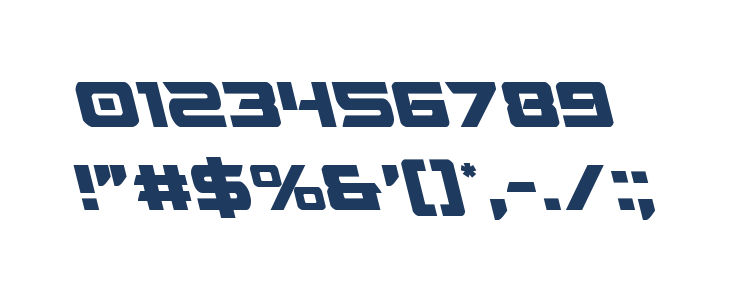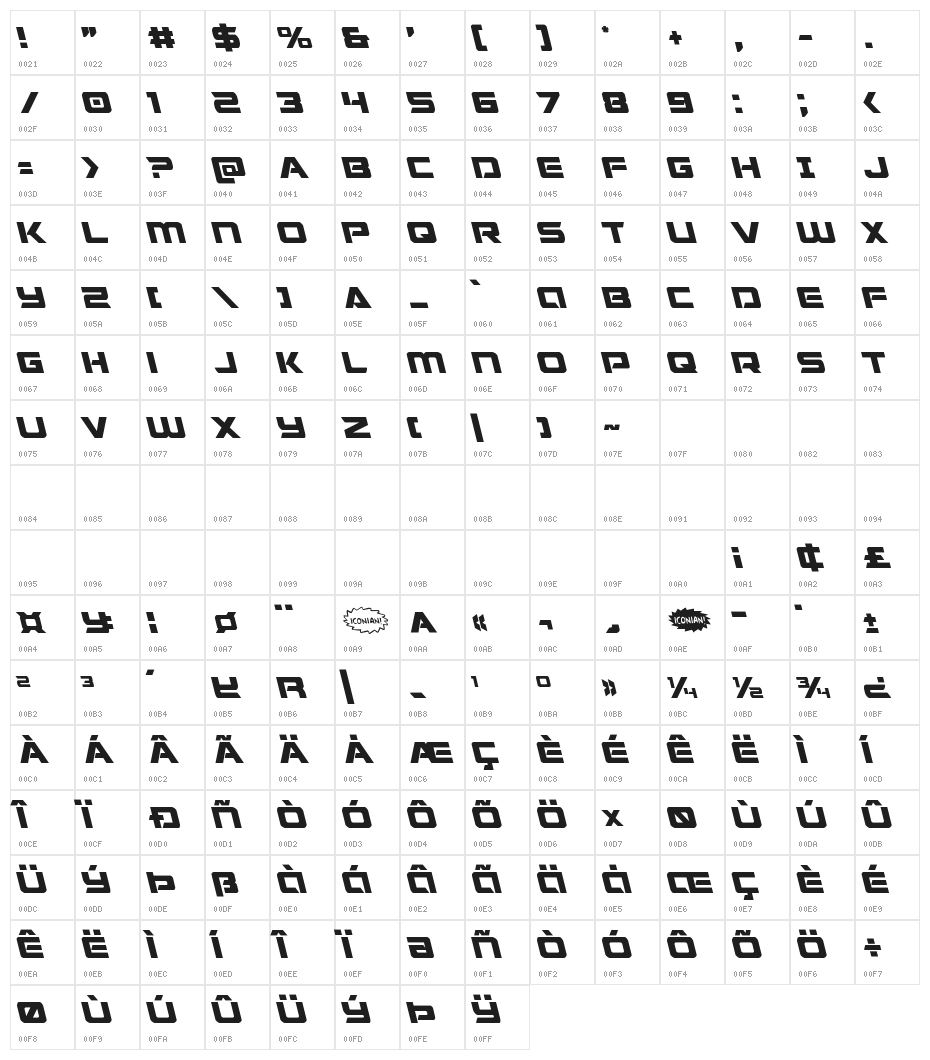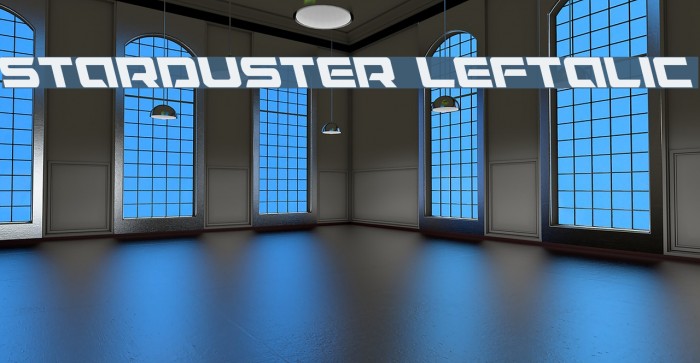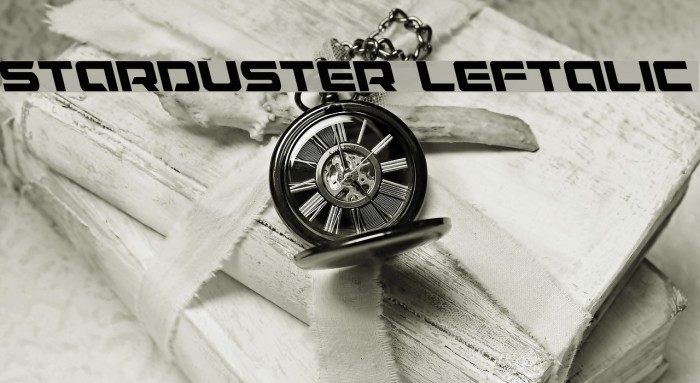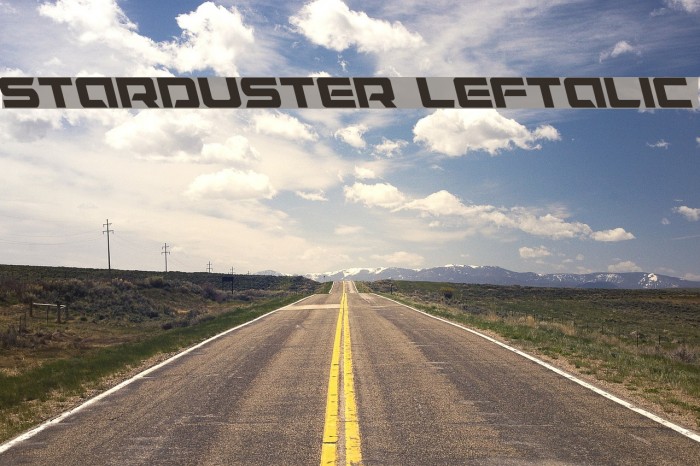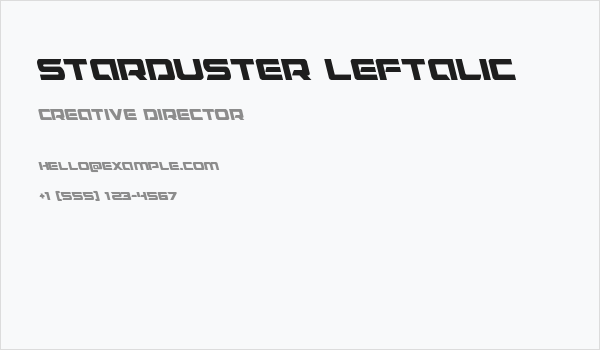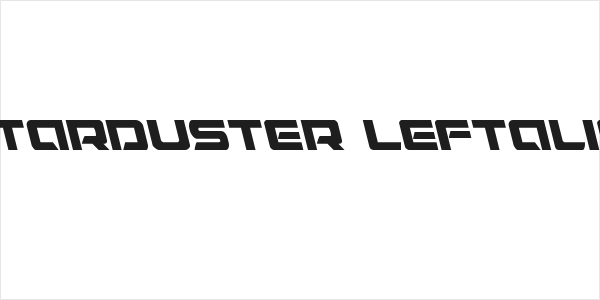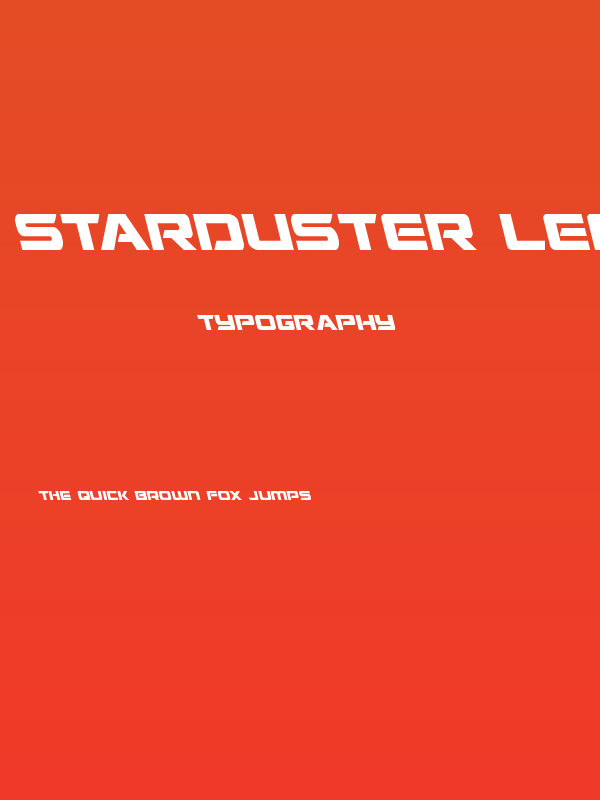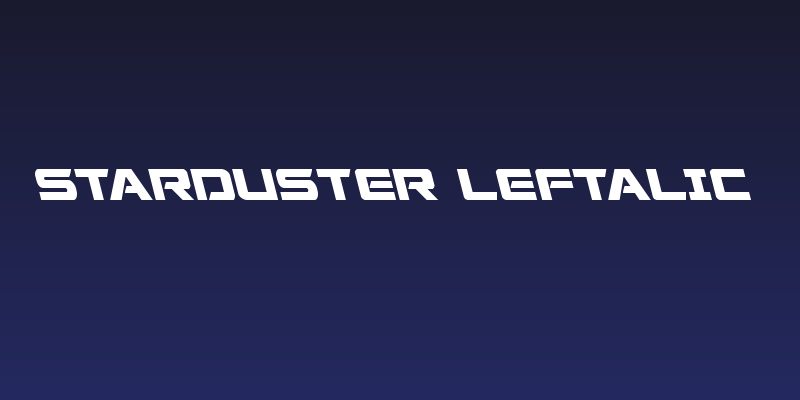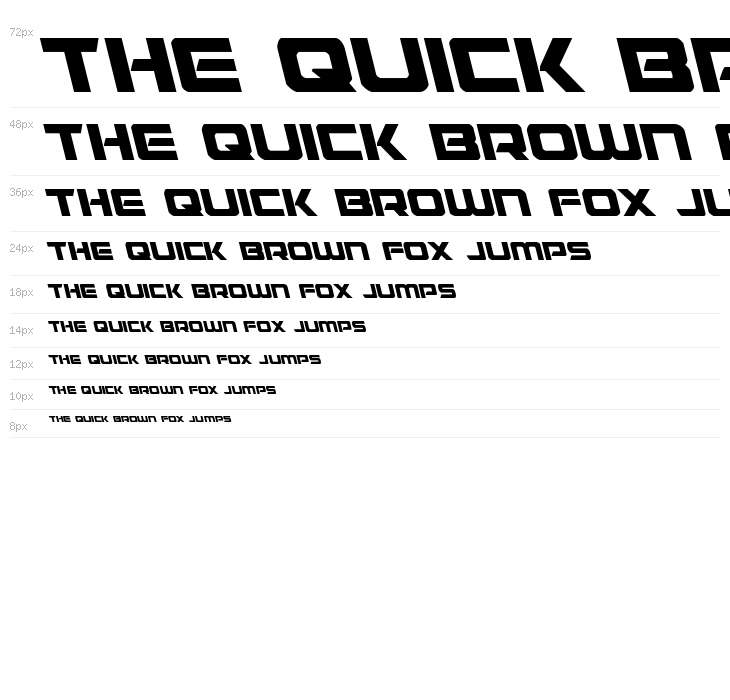
Starduster Leftalic Font
Starduster Leftalic Description
This font features a bold, futuristic design with angular and geometric shapes. The characters are slightly slanted, giving a dynamic and forward-moving appearance. The uppercase letters are consistent in height, while the lowercase letters maintain a similar style, ensuring readability. The numbers and special characters follow the same angular design, making them stand out. This font is ideal for projects that require a modern and edgy look, such as technology branding, sci-fi themes, or video game titles.
| Proposed Projects | Ideal for technology branding, sci-fi themes, video game titles, and modern posters. |